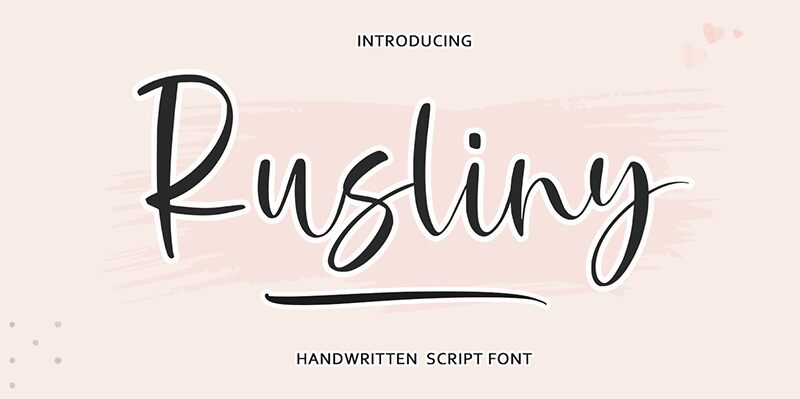
RuslinyScript
Rusliny Script font by Rastype is a free handwritten font that captures an expressive and casual style. Its organic flow and personal touch are beautifully balanced with a modern aesthetic, creating a versatile and engaging visual experience.
Use Rusliny Script in posters, quotes, advertising, branding projects, product titles, social media posts, print products such as magazines or books covers. Possible uses further extend to blogs presentation or wedding invitation designs. Inserting the fonts into published content is possible on packaging designs too such as cards or labels for example.